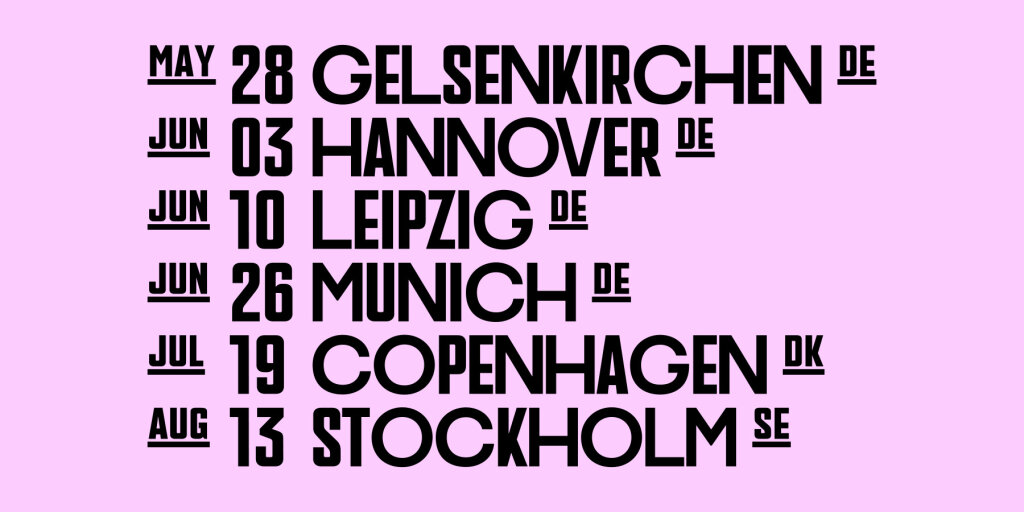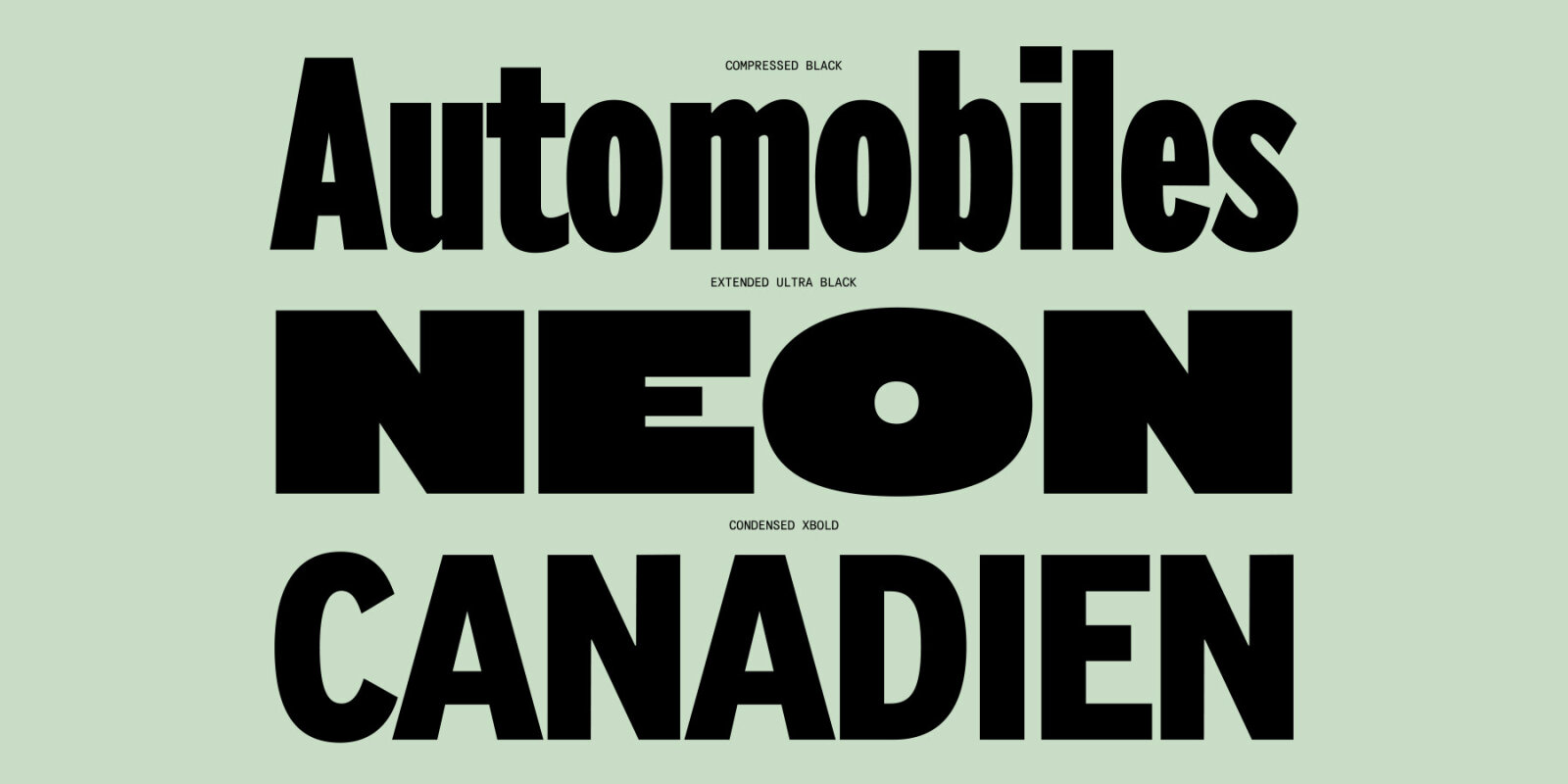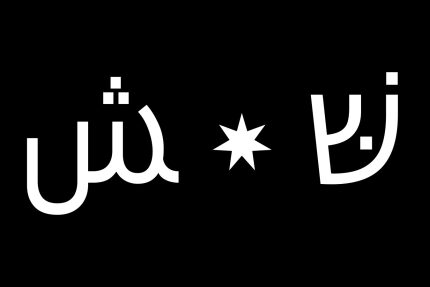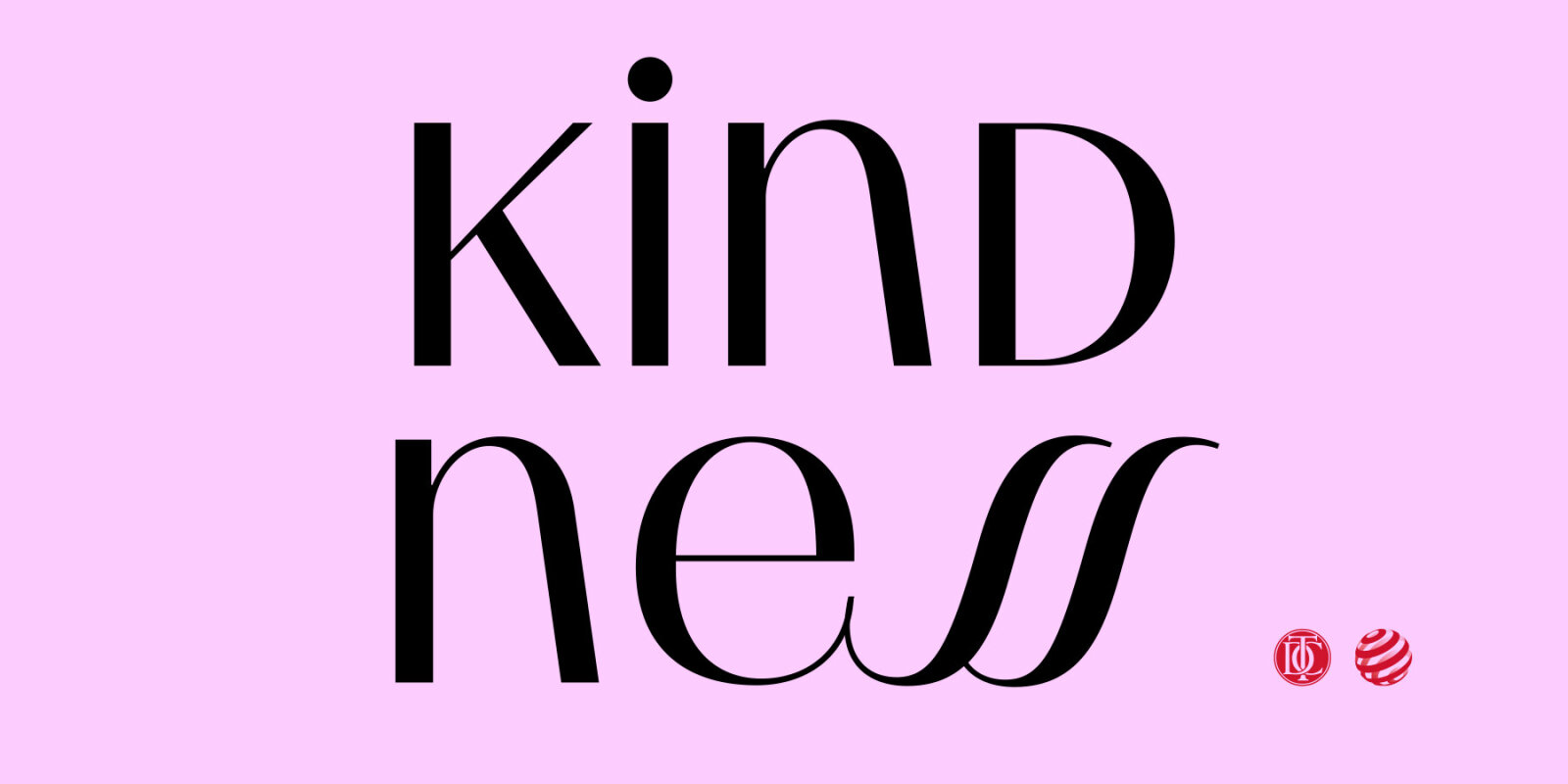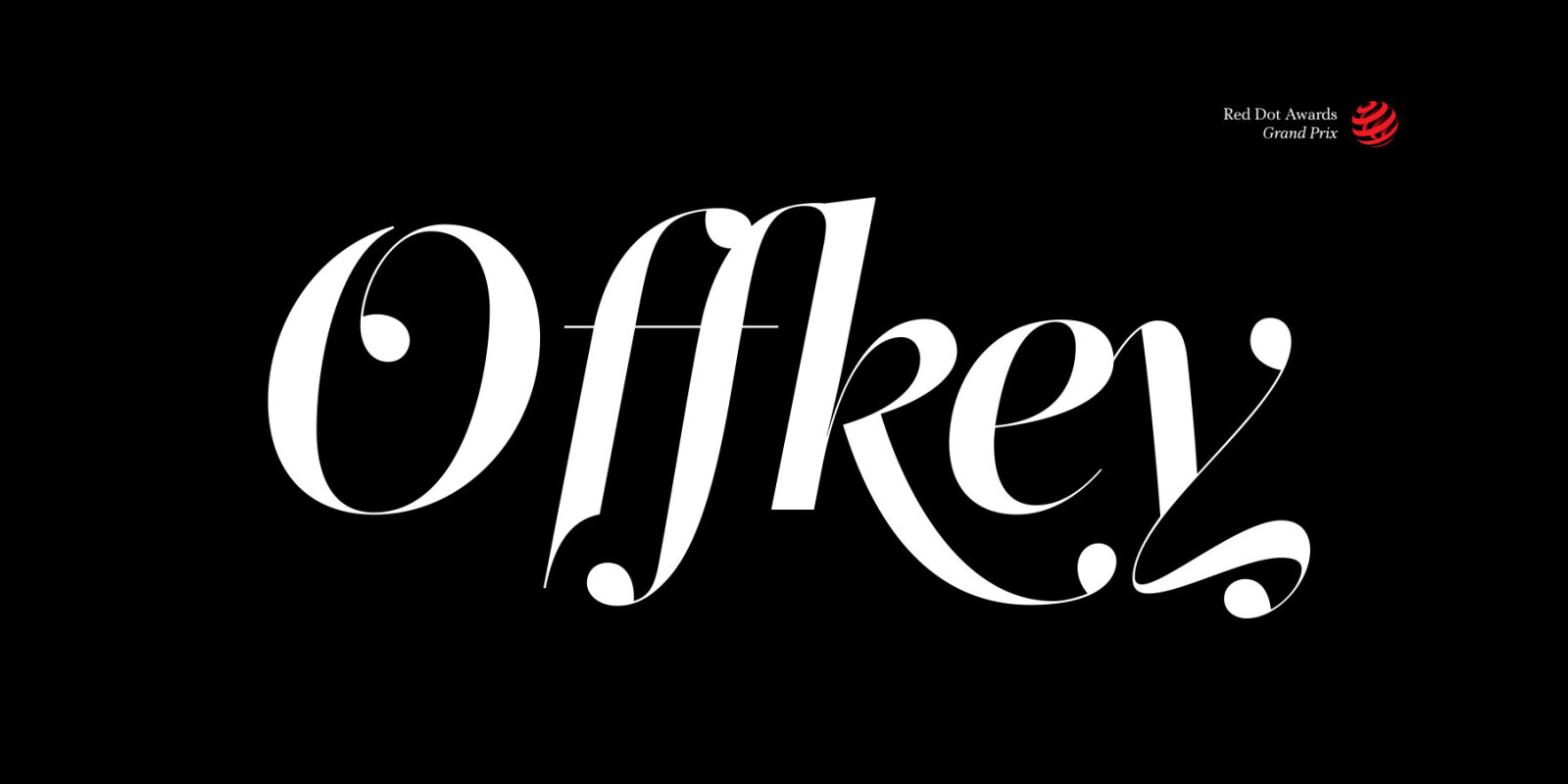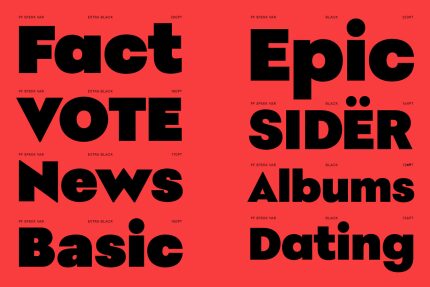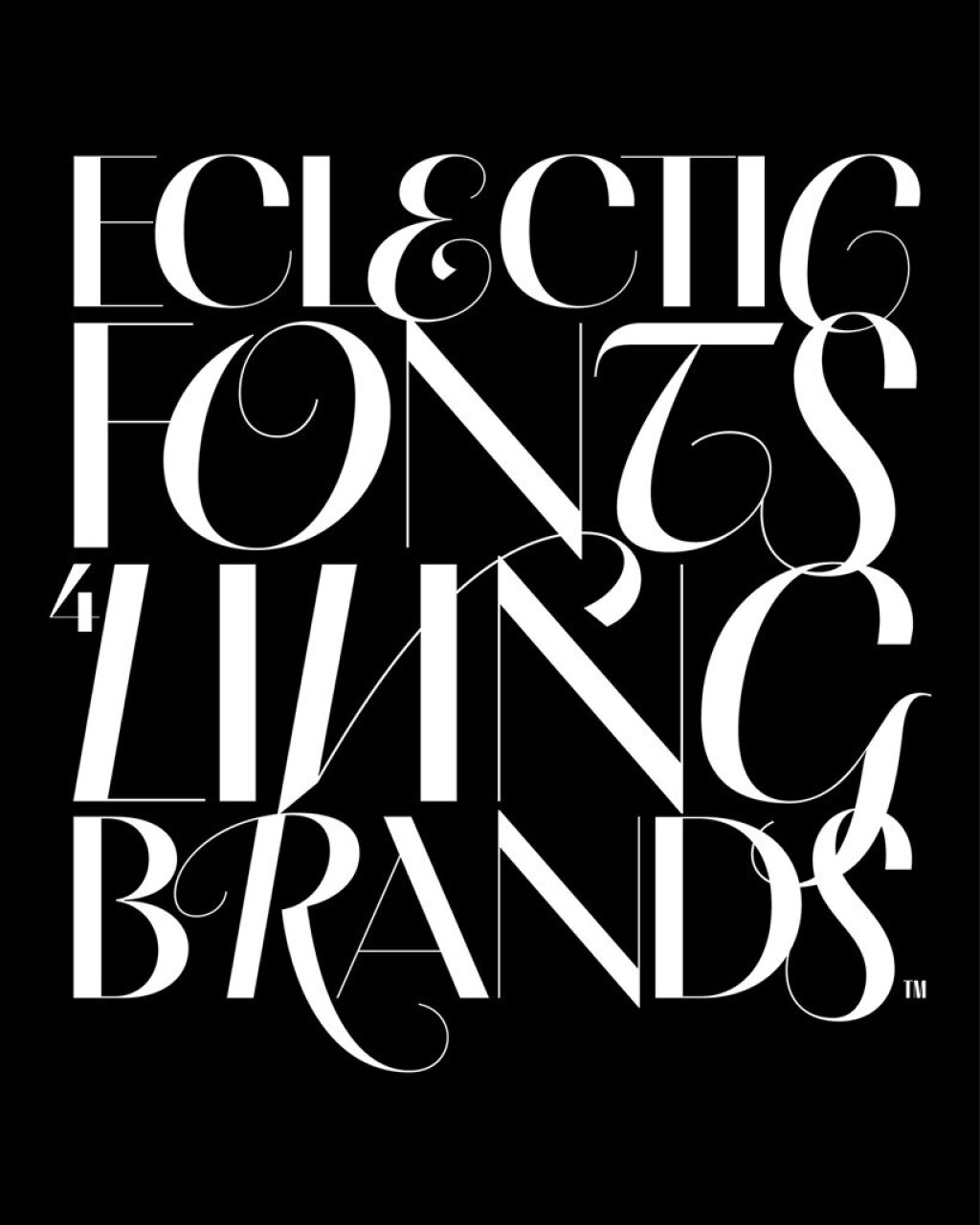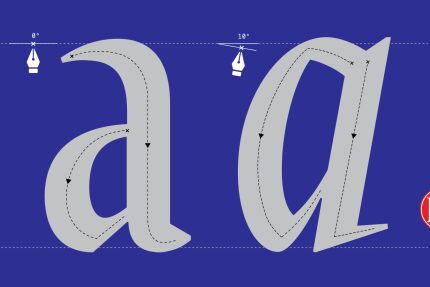
Parachute®
Parachute® is a digital type foundry dedicated to crafting bespoke typefaces, multilingual corporate fonts, and custom lettering. Known for developing proprietary designs trusted by some of the world’s most iconic brands and institutions, we pride ourselves on pushing the boundaries of modern typography through innovative collaborations with visionary organizations. With a focus on excellence, we deliver type solutions that elevate brands and captivate audiences worldwide.
PF Grecia (variable)
PF Venue is a large x-height set of 2 families with alternate letterforms, which manifest a unique texture when set in uppercase. The daring combination of non-uniform structures such as the normal narrow forms with the alternate wide forms exudes a striking eye-catching personality. Underlined by the avid necessity of the underground music scene for non conformity, expression, freedom of spirit, rule breaking and challenging preconceptions, this collection pays tribute to a rocker at heart!
PF Expo's design is nobly rooted in simple, rational, and absolutely functional Roman forms. Its serifs follow an artful logic of triangular symmetry, whilst at x-height, the slanted one-sided serifs blend effortlessly into the stems to foster a distinct identity with solid and provocative quality. In addition, the italic version alters dramatically the texture and rhythm with razor-sharp terminals that transform from dual-sided serifs to triangular upstrokes.
In recent years our attention has moved away from complicated letterform designs back onto shapely simple forms and PF Spekk is an answer to this ongoing visual trend. A geometric variable typeface tastefully revived from early 20th century archives, It encapsulates the sheer tension among squares, triangles, and circles at its core.Spekk’s merits include shortened capitals, consistent geometry in the entire set of styles, and intuitive italics.
In today’s global market, brands need universal typefaces that ensure cohesive communication and perform across diverse environments. PF DIN Global, a variable typeface, meets this demand with a versatile range of weights and consistent tone. Supporting Latin, Greek, Cyrillic, Arabic, Hebrew, and Vietnamese, including italics, it empowers brands to connect with international audiences seamlessly.
PF Grand Gothik (variable)
What are the challenges and opportunities in designing multiscript fonts? How do you see multi script typography develop and used now and in the next decade?
Balancing the visual harmony of diverse scripts while preserving their cultural and linguistic identities is a challenging task for type designers. It requires a careful blend of historical authenticity and modern functionality, along with a deep understanding of each script’s unique nuances.
With the global expansion of brands, the demand for multiscript fonts is growing rapidly. These fonts are vital for establishing consistent visual identities across languages and regions, ensuring seamless experiences on multilingual websites, e-commerce platforms, and global applications.
The future of multiscript typography is set for transformation. Advances in variable fonts, and AI will streamline the design process, allowing designers to focus on creativity and cultural nuances. By integrating these innovations with a commitment to cultural heritage, designers can craft fonts that drive authentic, inclusive, and forward-thinking global communication.
PF Marlet
About Parachute Typeroundry
Parachute® is a digital type foundry specializing in bespoke typefaces, multiscript corporate fonts, and custom lettering. By harnessing the transformative power of typography, Parachute® helps brands build a strong global presence, enriching their identities and tailoring their voices to resonate in emerging markets. Rooted in a commitment to innovation and quality, the studio seamlessly bridges cultural and regional differences, blending tradition with modernity.
Since its founding in 2001, Parachute® has partnered with leading organizations worldwide, crafting proprietary typefaces for iconic brands and institutions such as Apple, Bank of America, European Commission, National Geographic, IKEA, Kraft Foods, UEFA, Samsung, Financial Times, Pernod Ricard, Ogilvy, and Emirates.
The studio’s work has earned widespread acclaim, receiving top honors from renowned design institutions including TDC, Red Dot, European Design Awards, Tokyo TDC, HiiiBrand, Granshan Awards, Communication Arts, and others.
PF Regal